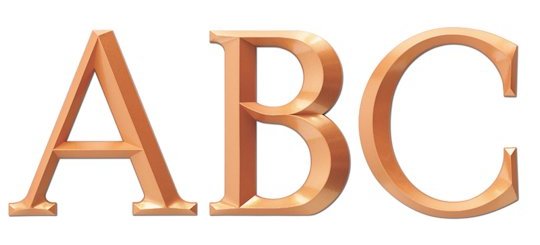
I am new to the board, I came across this when I was searching for a Font I am needing for doing a main ID signage.
Usually the font used for a Prismatic type font is a Times Roman or Trajan Bold. I have a listed a image of what I am looking for.